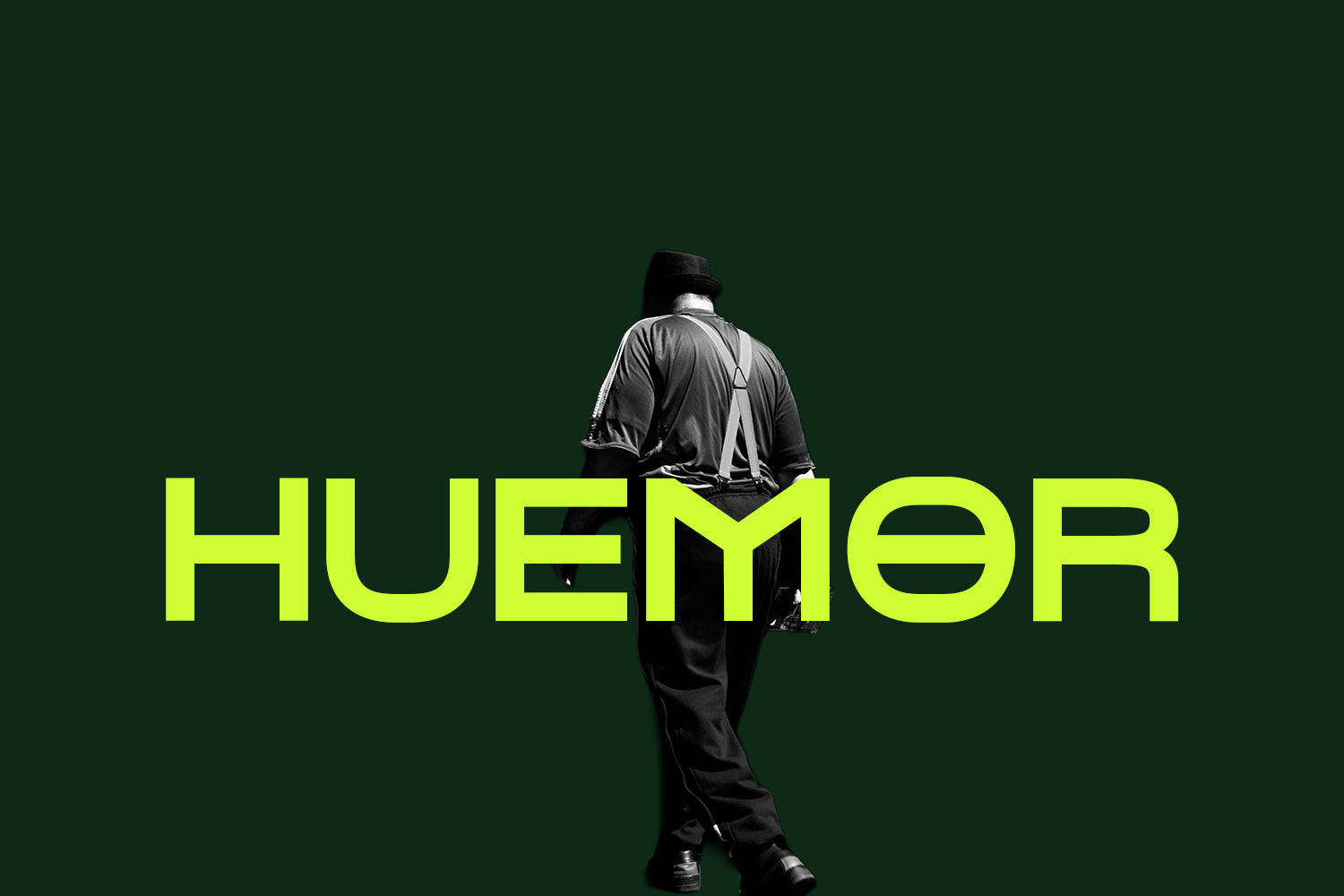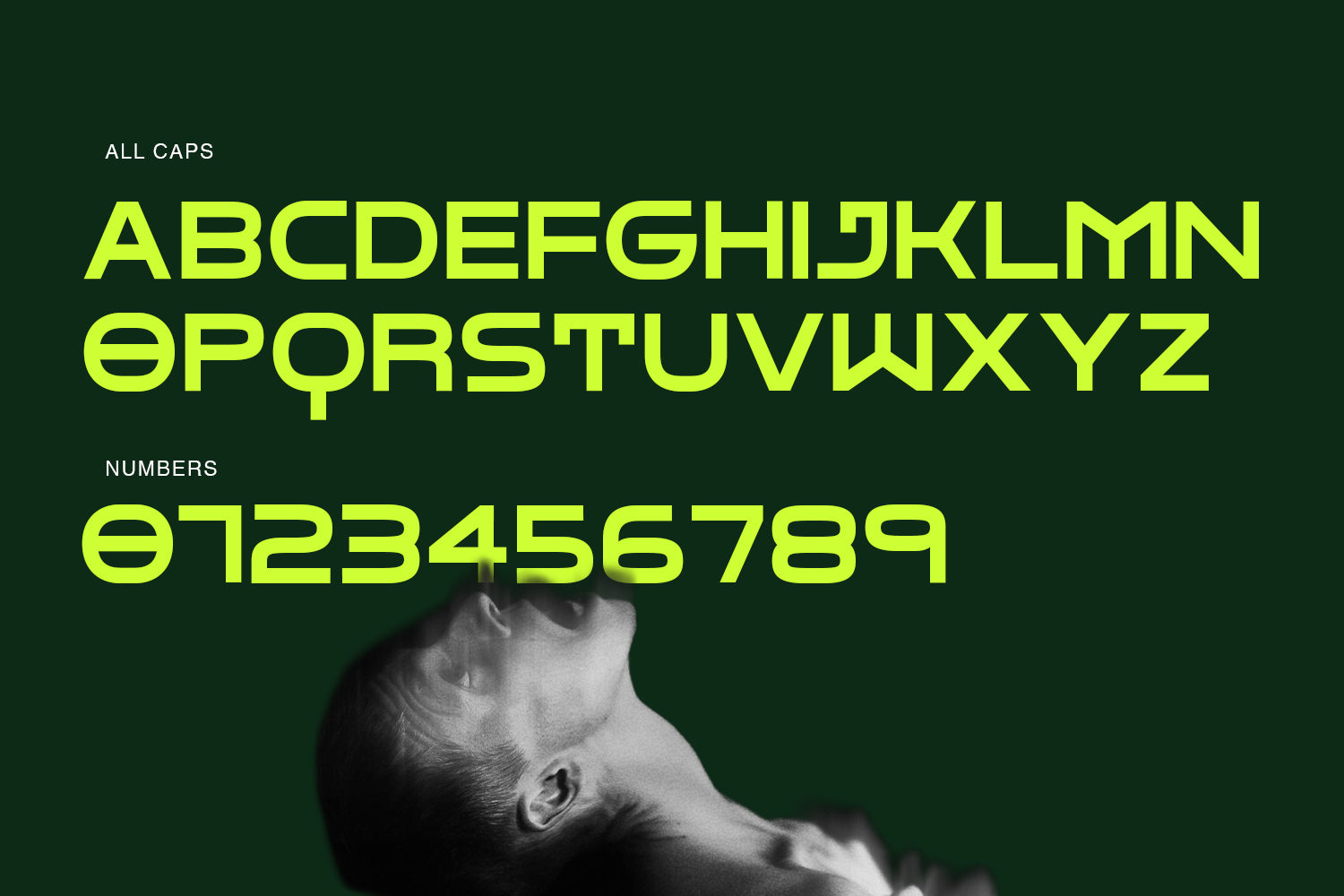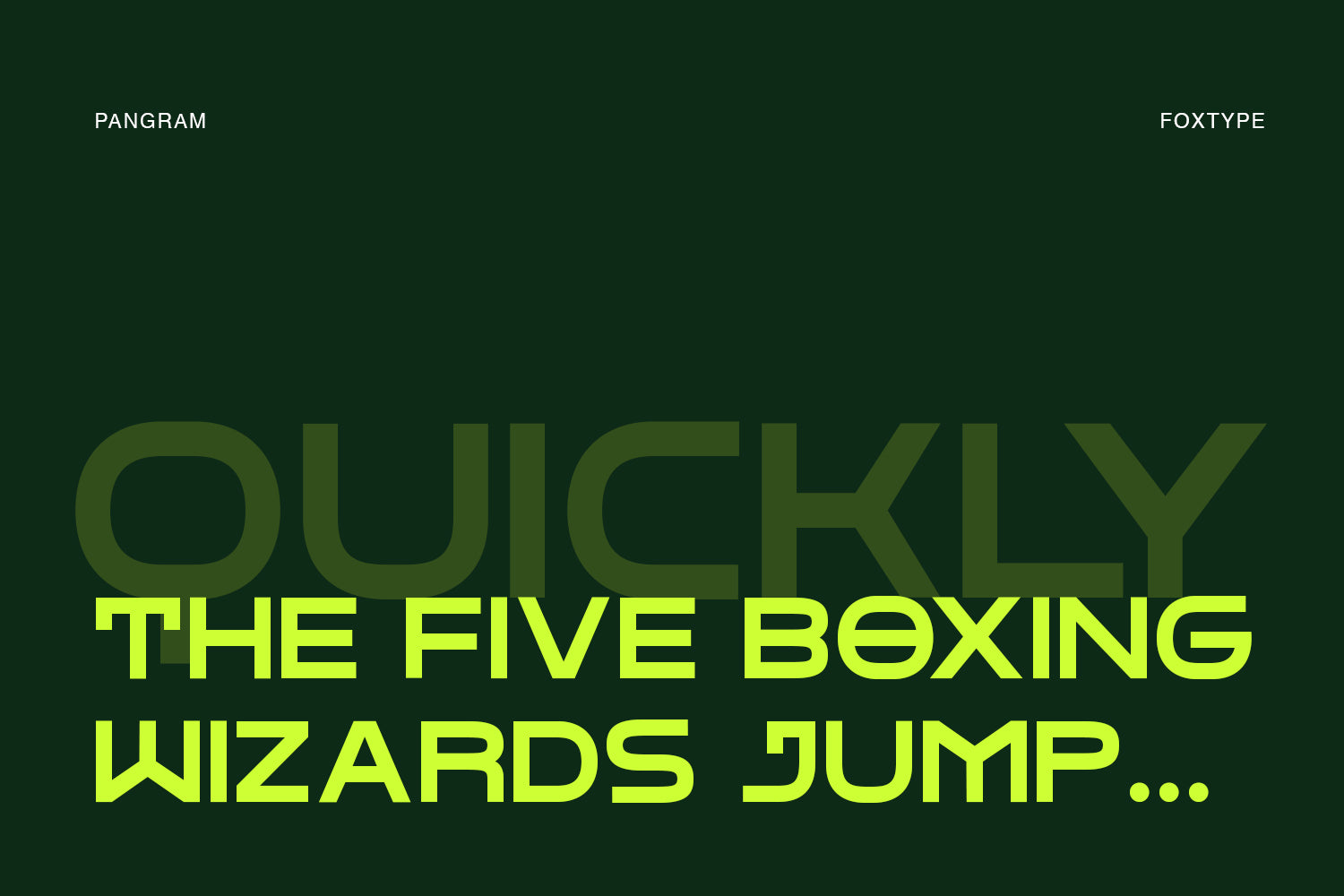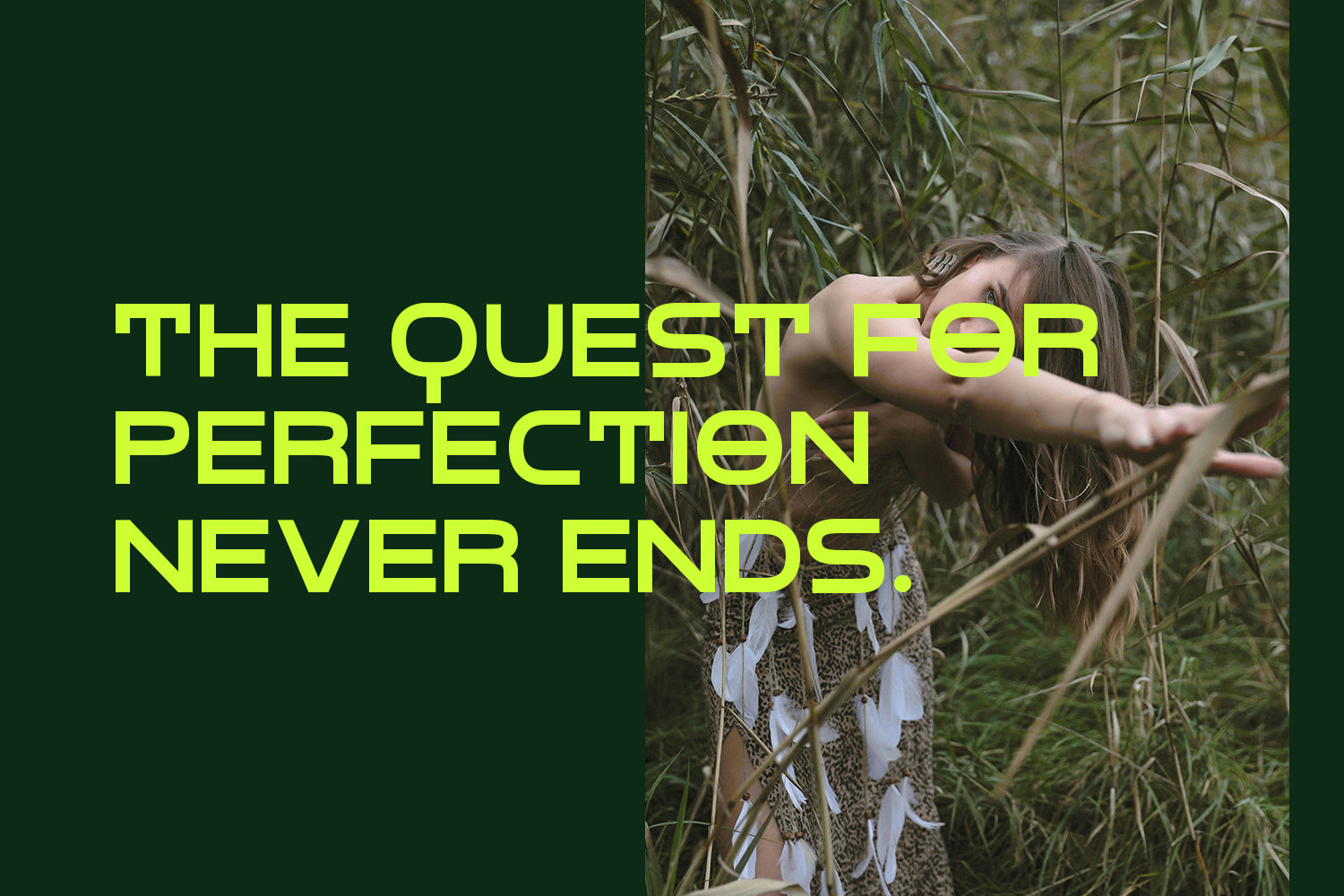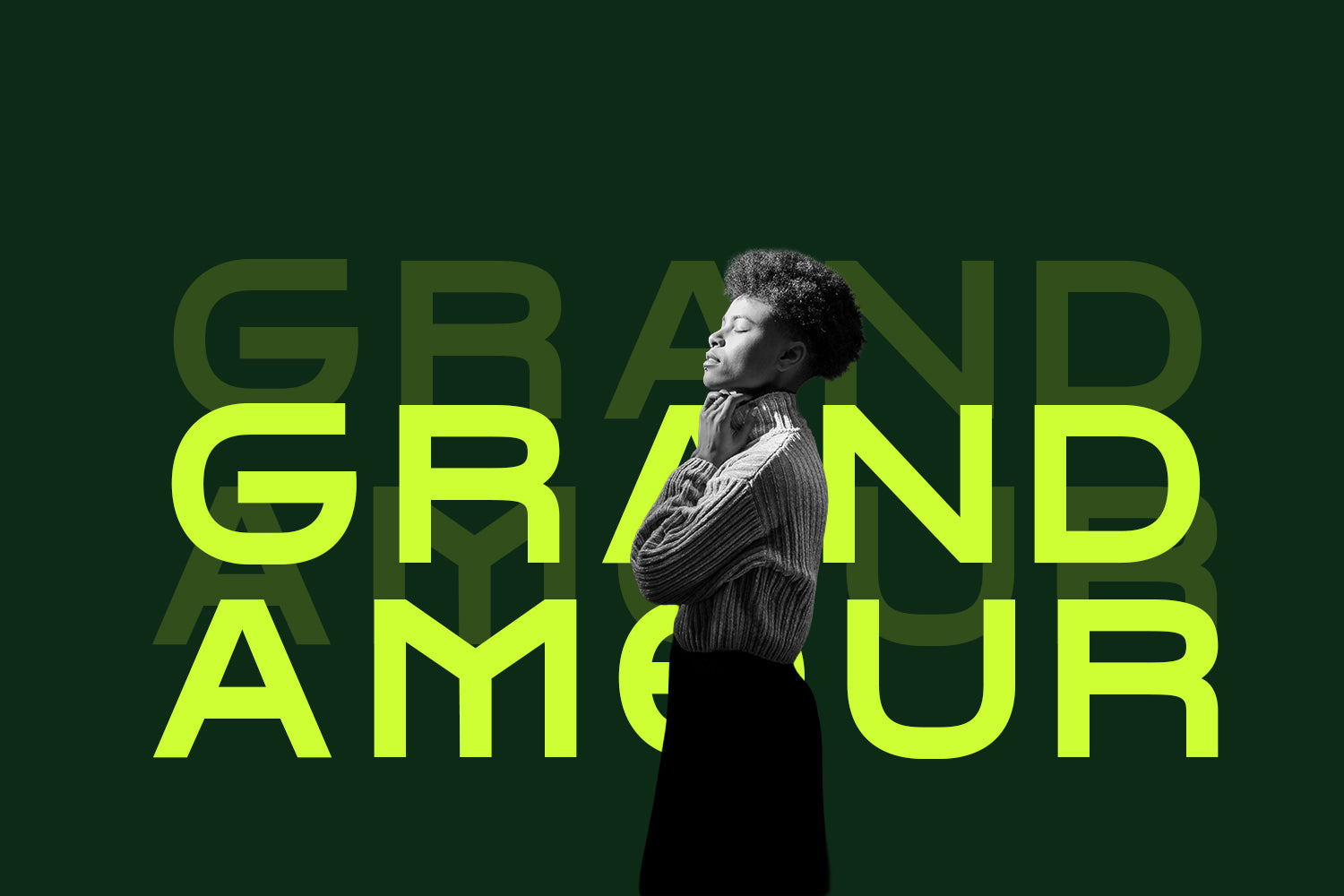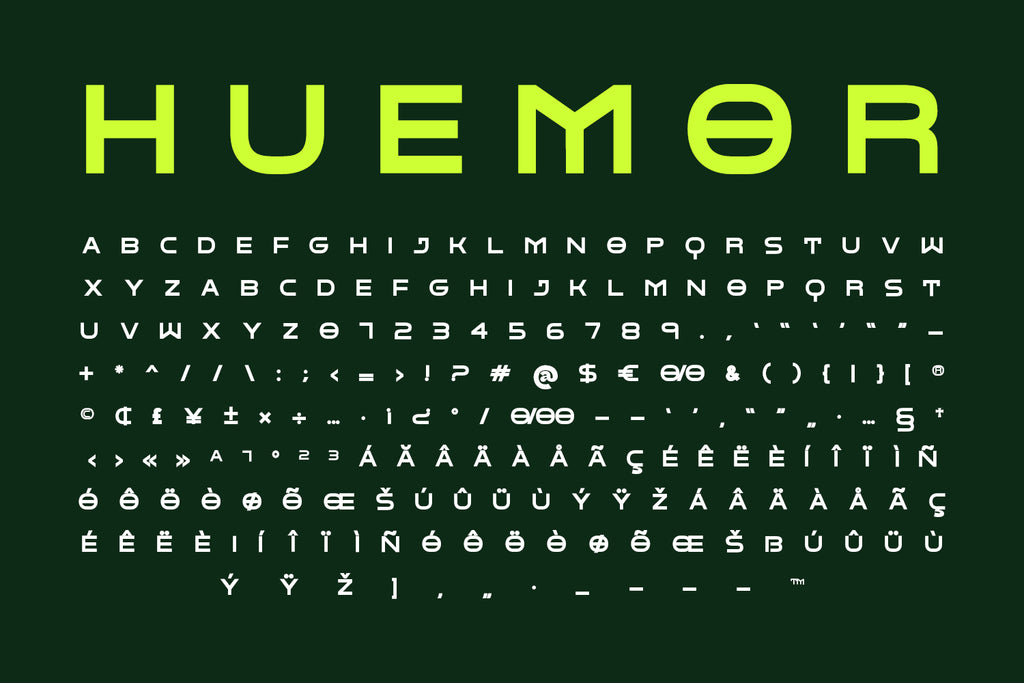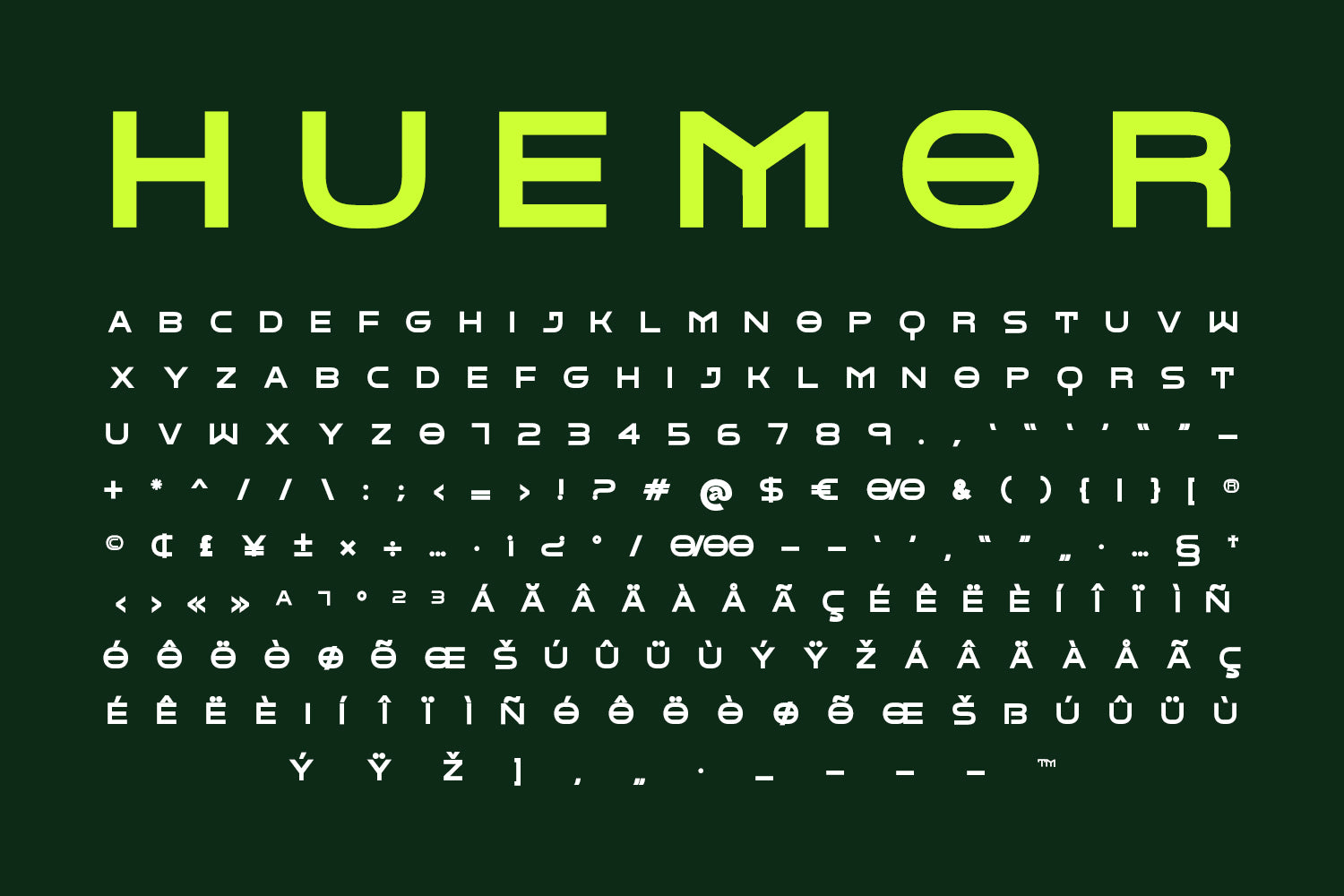
Huemor Display
Huemor is a bold decorative typeface designed to command attention. Crafted specifically for posters, covers, and flyers, it blends playful character with strong visual impact, making every word feel expressive and memorable. Its distinctive letterforms bring personality and rhythm to headlines, ensuring your designs stand out at a glance.
Designed as a single-weight font, Huemor focuses on clarity and character rather than complexity—perfect for confident typographic statements. Whether used large and loud or as a focal accent, Huemor delivers a unique voice suited for contemporary graphic design.